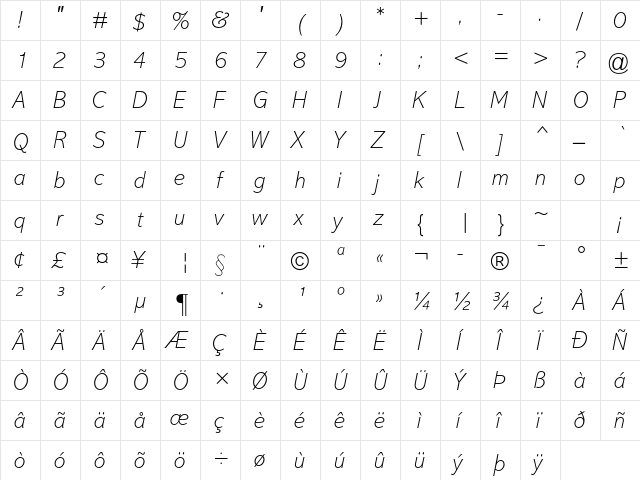
Abadi MT Std Extra Light It
| Foundry | Agfa Monotype Corporation |
Design Context for Abadi MT Std Typeface
Abadi MT Std offers clean, dependable letterforms without strong stylistic allegiance, making it a practical choice for designers who need flexibility. The delicate stroke weight brings airiness and refinement to layouts.